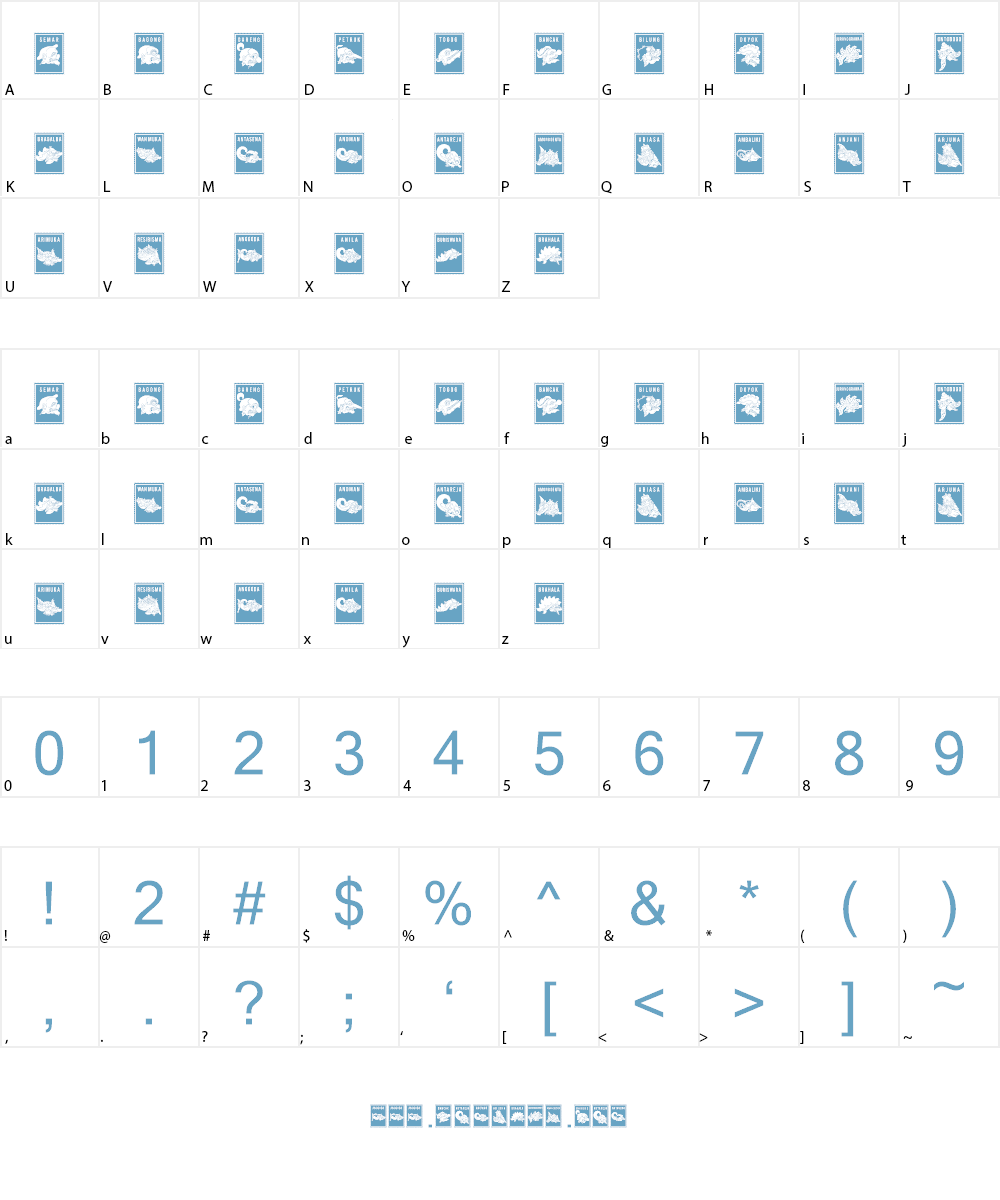
Wayang is shadow puppets culture in Indonesia, I make "Perangko Wayang" to documentation a culture and to make some toys like playing card to all my child in my town Juwana